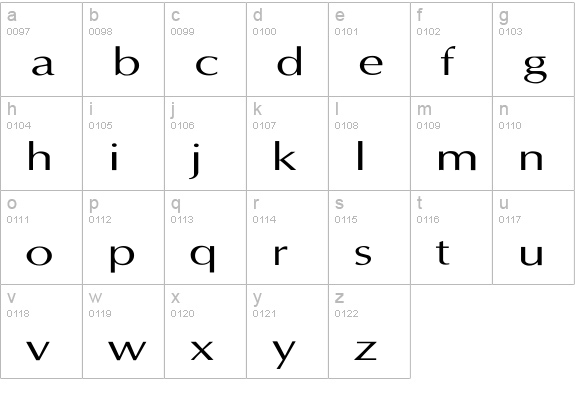
Last Uniform is an absolutely mesmerizing font that effortlessly combines elegance and simplicity. With its clean lines and timeless appeal, this font is perfect for a wide range of design projects. Whether you are creating a logo, designing a website, or crafting a captivating advertisement, Last Uniform will undoubtedly leave a lasting impression. What sets Last Uniform apart from other fonts is its versatility. It seamlessly transitions from bold headlines to delicate body text, ensuring that your message is conveyed with utmost clarity and sophistication. The balanced letterforms and carefully crafted curves make this font a true work of art. And the best part? Last Uniform is completely free to download at FontsMarket.com. That's right, you can enhance your designs without spending a dime. With just a few clicks, you can have access to this incredible font and unlock a world of possibilities for your creative projects. Whether you're a seasoned designer or just starting out, Last Uniform will become your go-to font for all your design needs. Its modern yet timeless aesthetic is sure to captivate your audience and convey your message with style and grace. So why wait? Download Last Uniform today and elevate your designs to new heights.